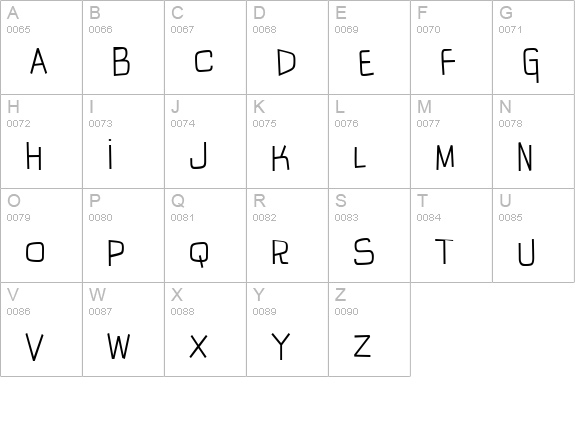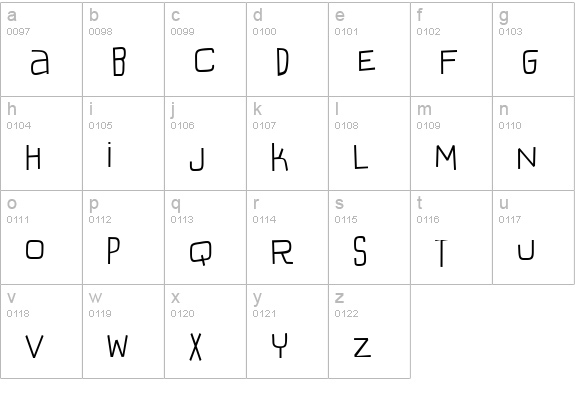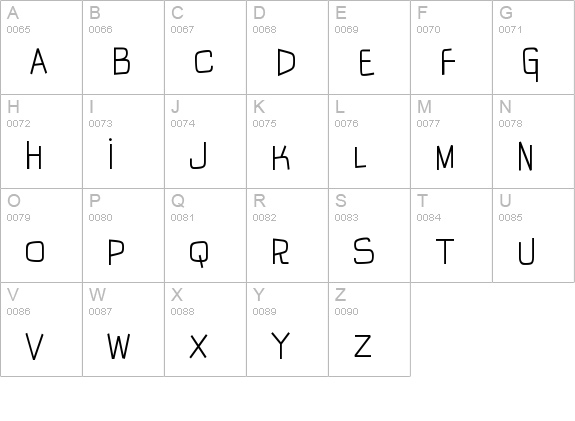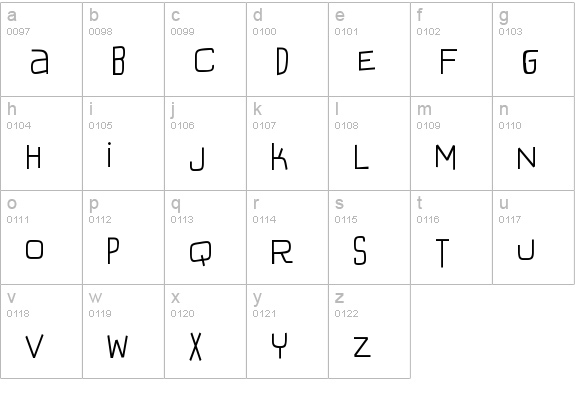
IguanaLover BTN Cn Lt is a captivating font that exudes a sense of elegance and playfulness. With its sleek and slender appearance, this font effortlessly captures attention and adds a touch of sophistication to any design. Designed with love for all the iguana enthusiasts out there, IguanaLover BTN Cn Lt is the perfect choice for those who appreciate the beauty of these intriguing creatures. Its rounded edges and gentle curves create a harmonious balance, making it a delight to behold. This font is not only visually appealing, but it also offers the convenience of being freely available to download at FontsMarket.com. Whether you are working on a personal project, designing a logo, or creating eye-catching advertisements, IguanaLover BTN Cn Lt will surely make a lasting impression. The versatility of IguanaLover BTN Cn Lt allows it to be used across a wide range of applications, from digital media to print materials. Its clean and legible characters ensure readability, making it suitable for both large headlines and smaller body text. So why wait? Give your designs a touch of uniqueness and charm with IguanaLover BTN Cn Lt. Download it freely at FontsMarket.com and let your creativity soar to new heights.